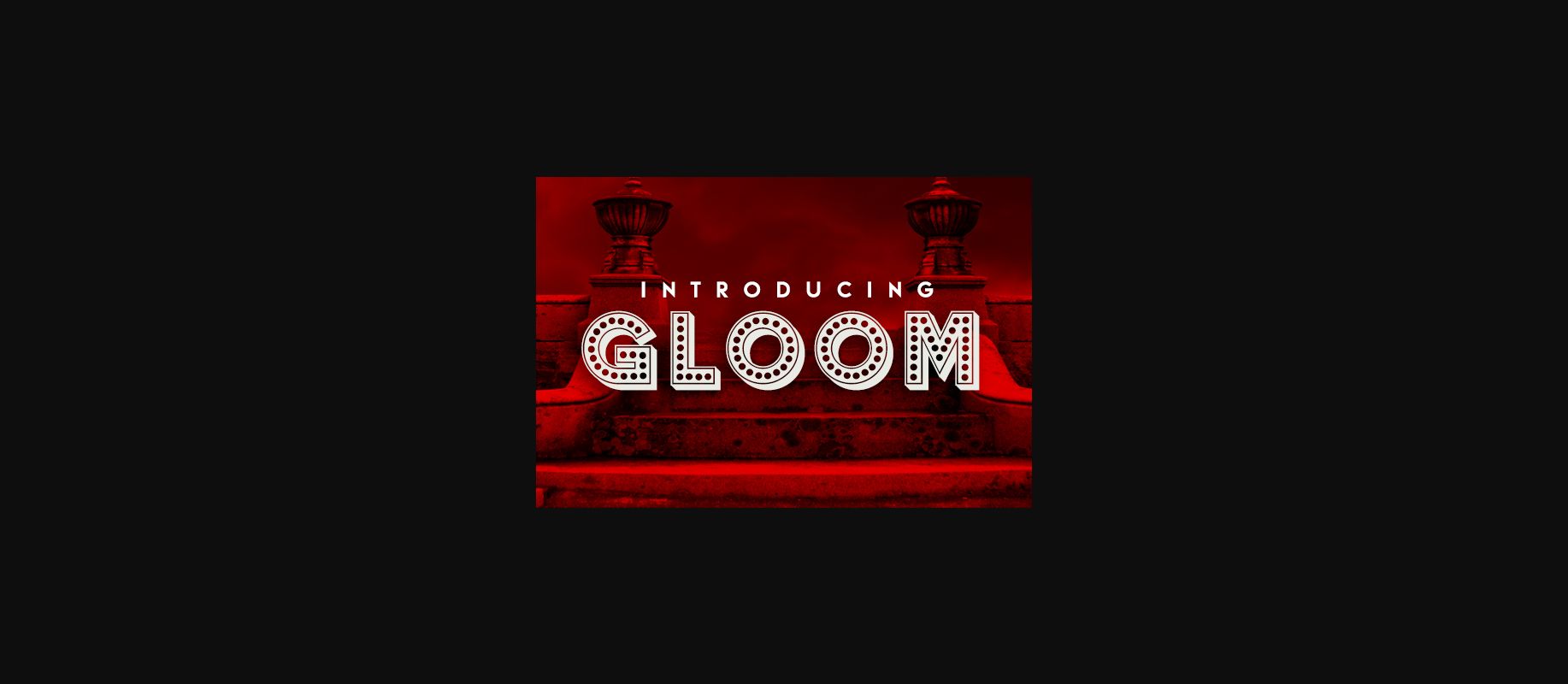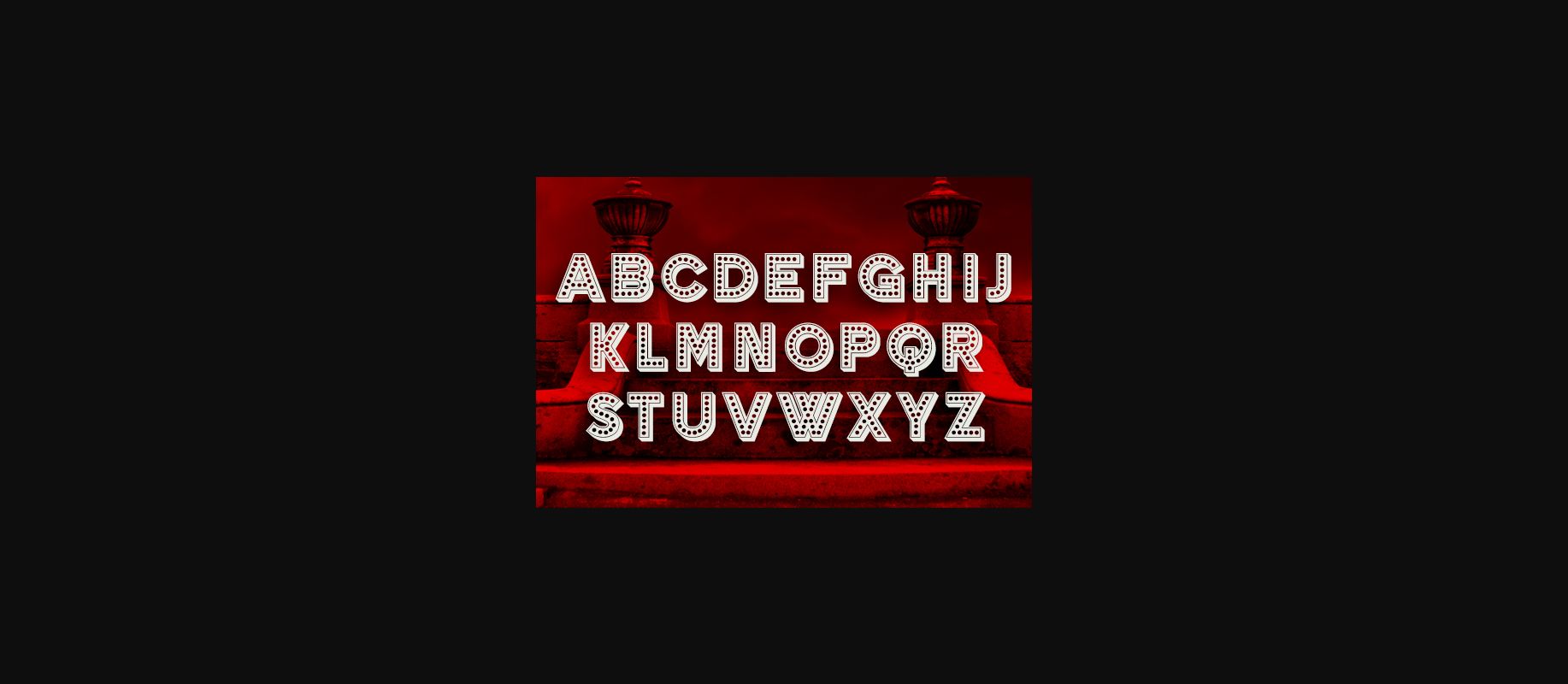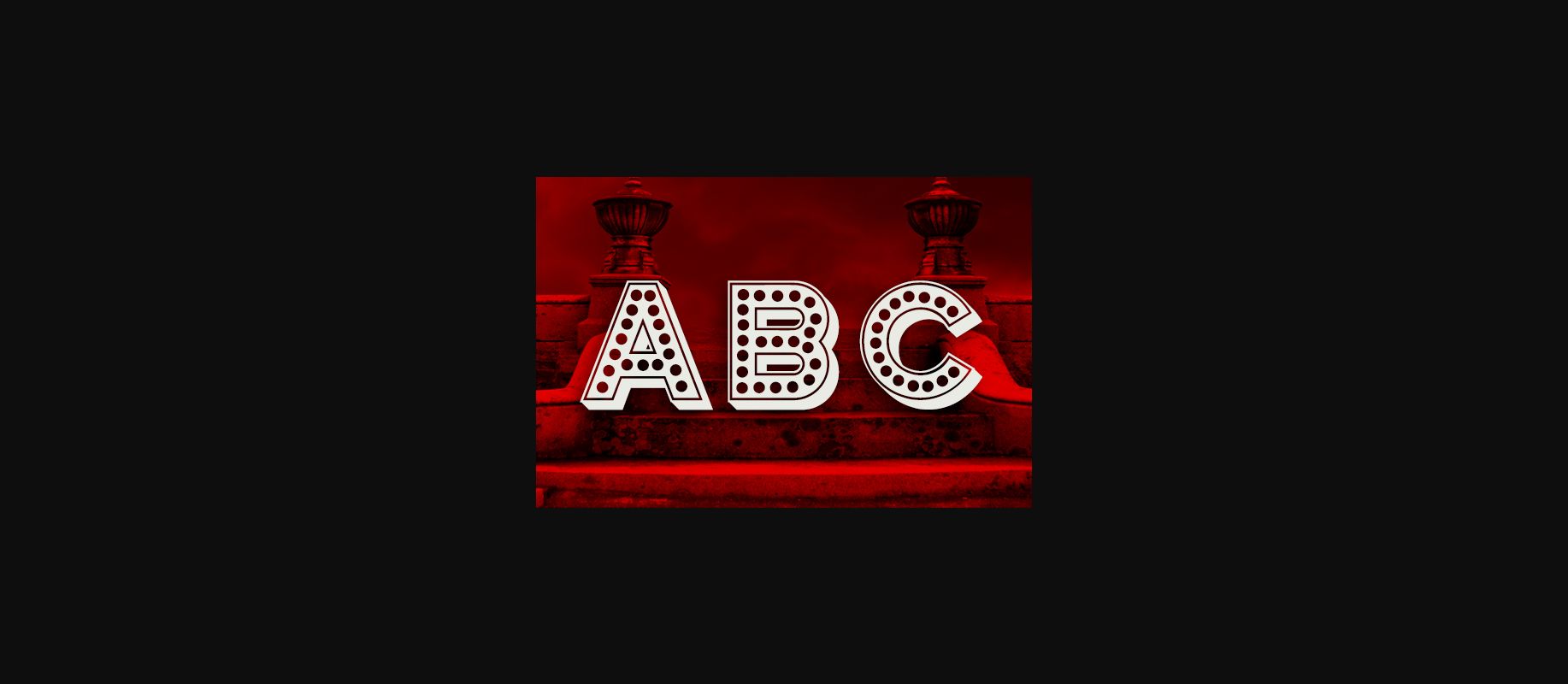
Gloom Font
About Gloom Font
Gloom is an awesome inspiring decorative font done in neon style. It will look stunning on any of your crafts and projects. Have fun with this font and explore its amazing possibilities.